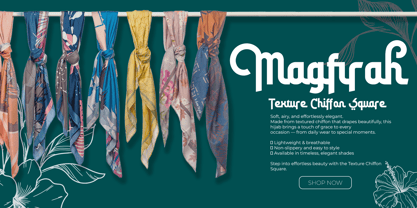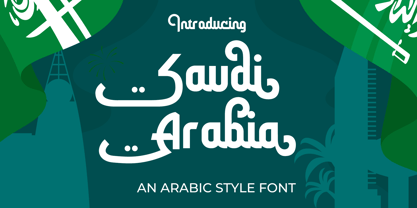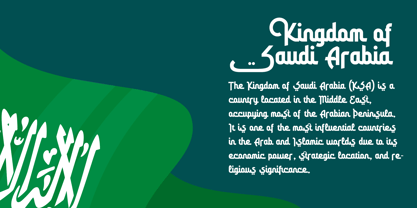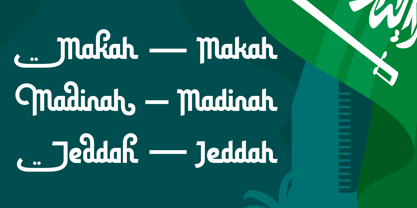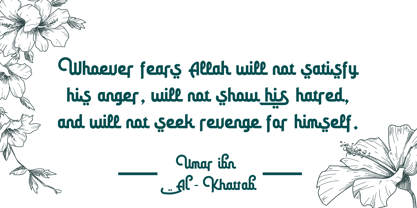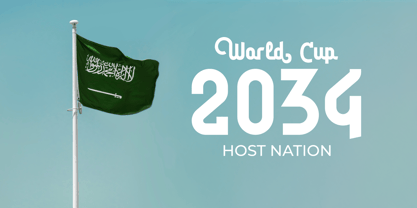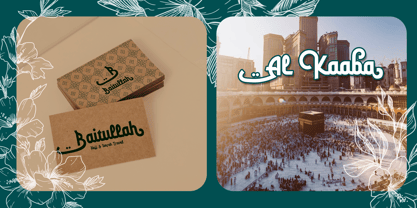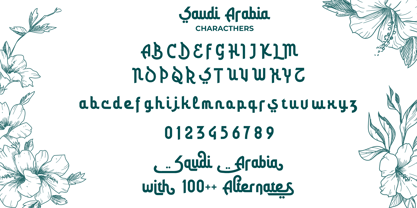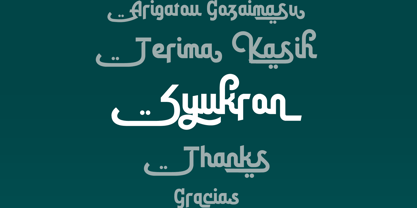
Saudi Arabia
by Mevstory Studio
The Saudi Arabia Font Family was designed by Muhammad Afif Ersya and published by Mevstory Studio. Saudi Arabia contains 2 styles and family package options. More about this family
Introducing Saudi Arabia — An Arabic Style Font with Modern Elegance Where tradition meets modern design. Inspired by the rich calligraphic beauty of Arabic culture, Saudi Arabia Font blends timeless Middle Eastern aesthetics with contemporary typography flair. Each curve and stroke is thoughtfully crafted — evoking the spirit of Arabian architecture, sand dunes, and cultural heritage, while remaining perfectly versatile for logos, branding, packaging, or editorial projects. From elegant invitations to bold headlines, Saudi Arabia Font brings authenticity and sophistication to every design it graces. Features: • Arabic-inspired Latin letters • Over 100+ alternates & stylistic ligatures • Perfect for cultural, modern, or luxury branding Bring your designs to life with a touch of Arabian artistry. Discover the beauty of Saudi Arabia Font — where heritage meets modern design.
Designers: Muhammad Afif Ersya
Foundry: Mevstory Studio